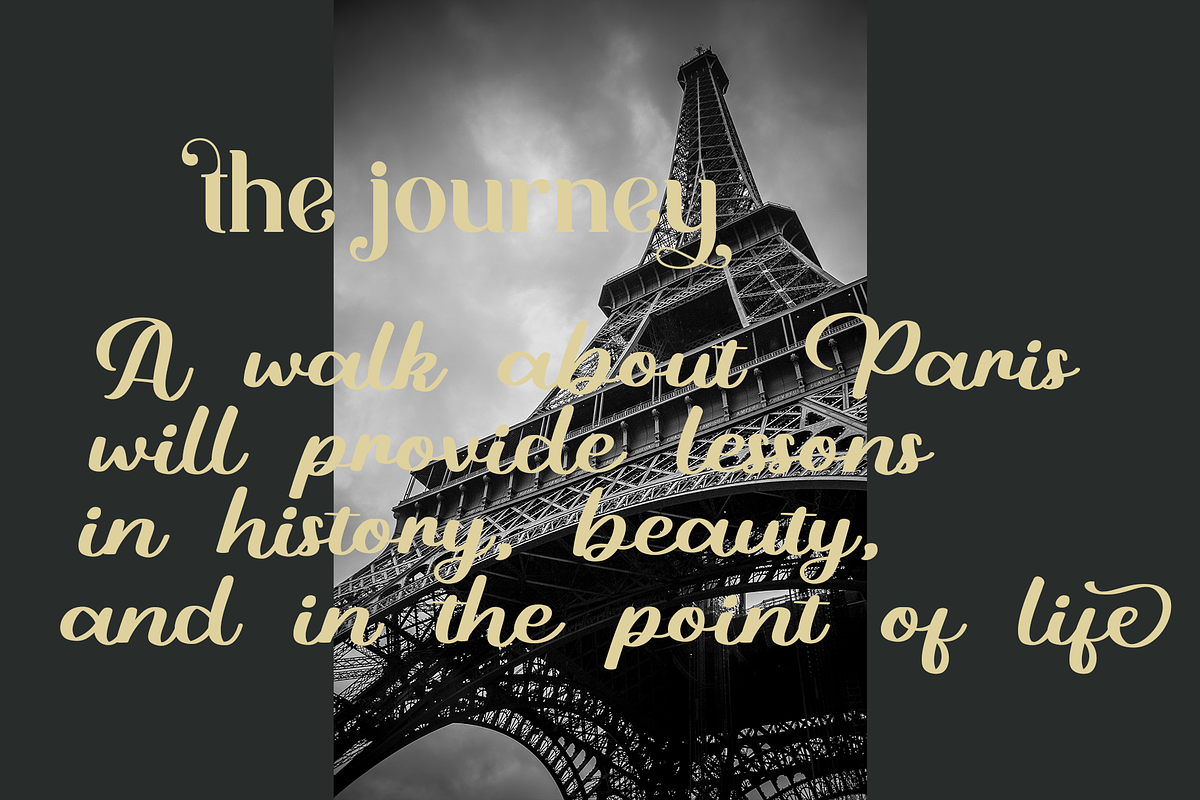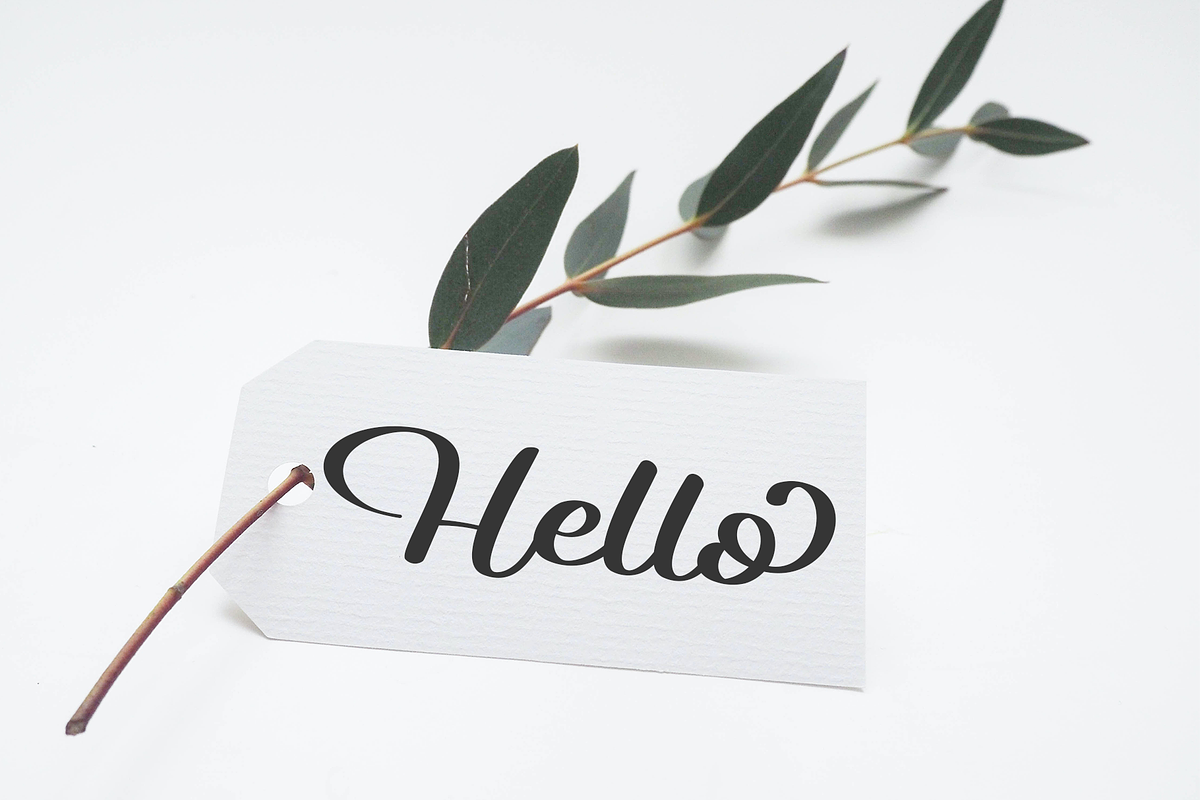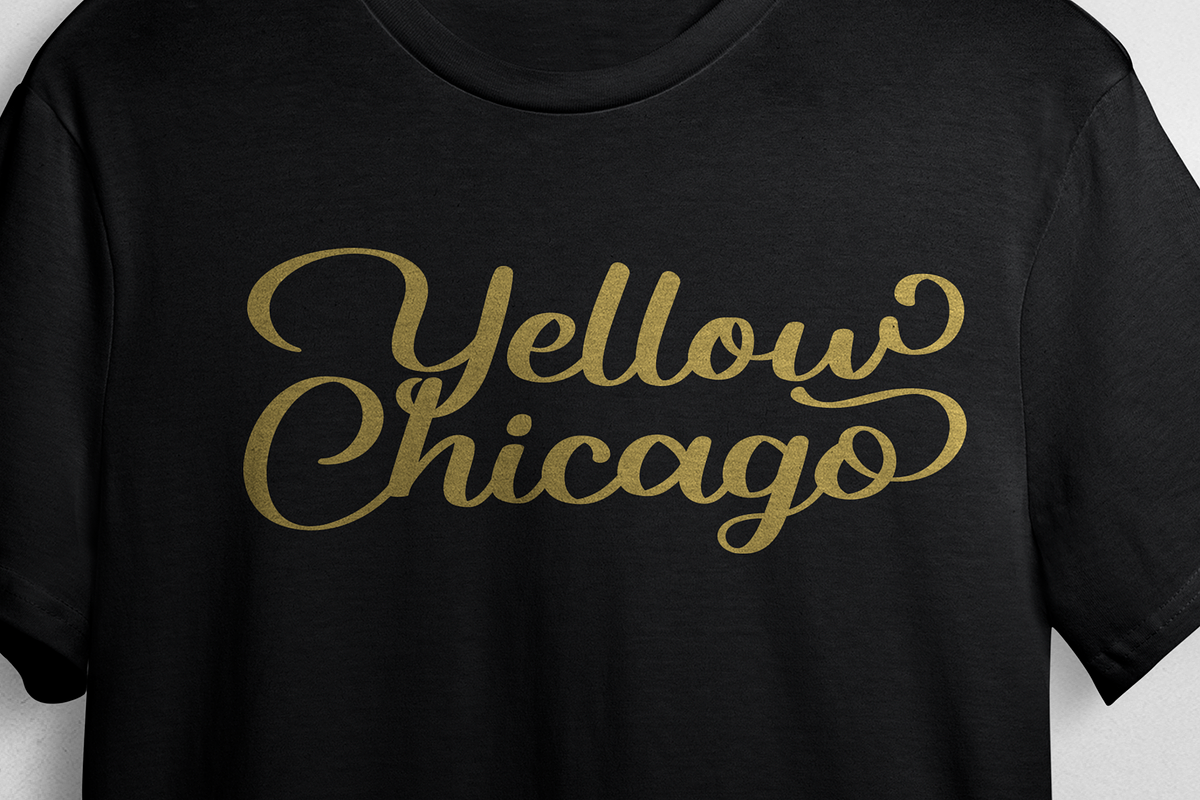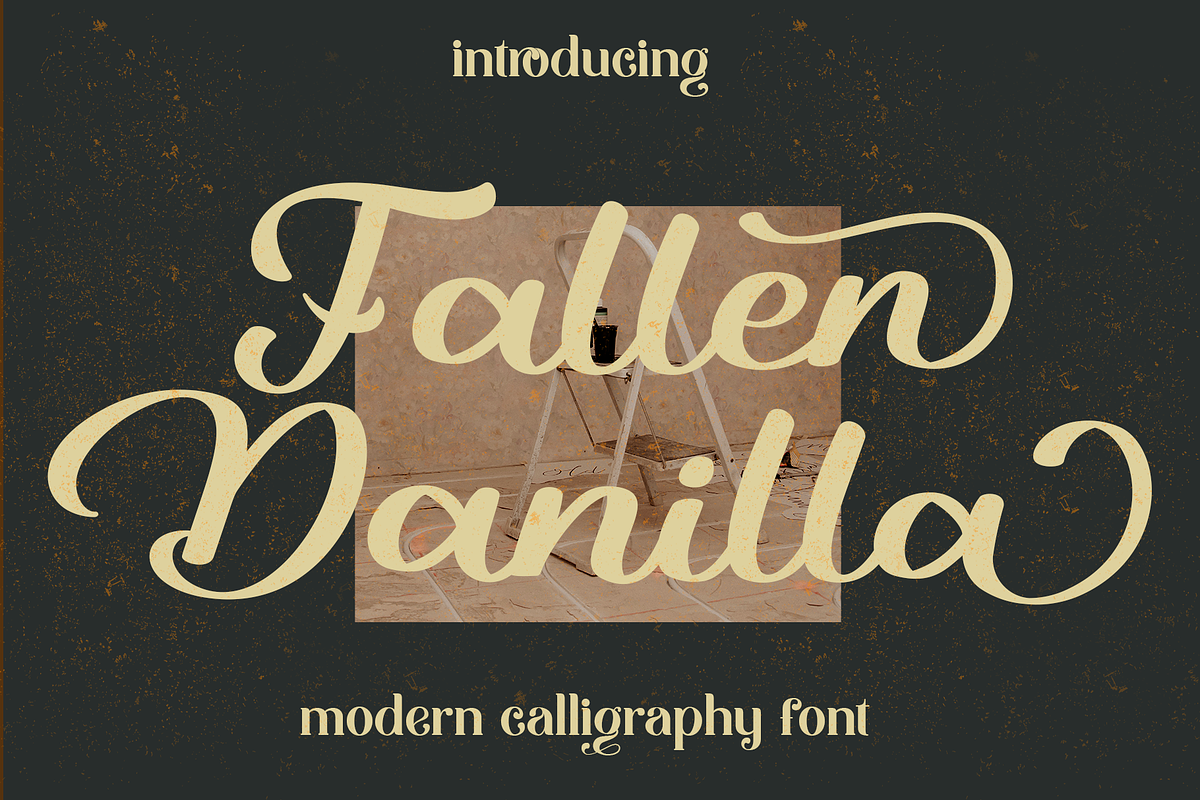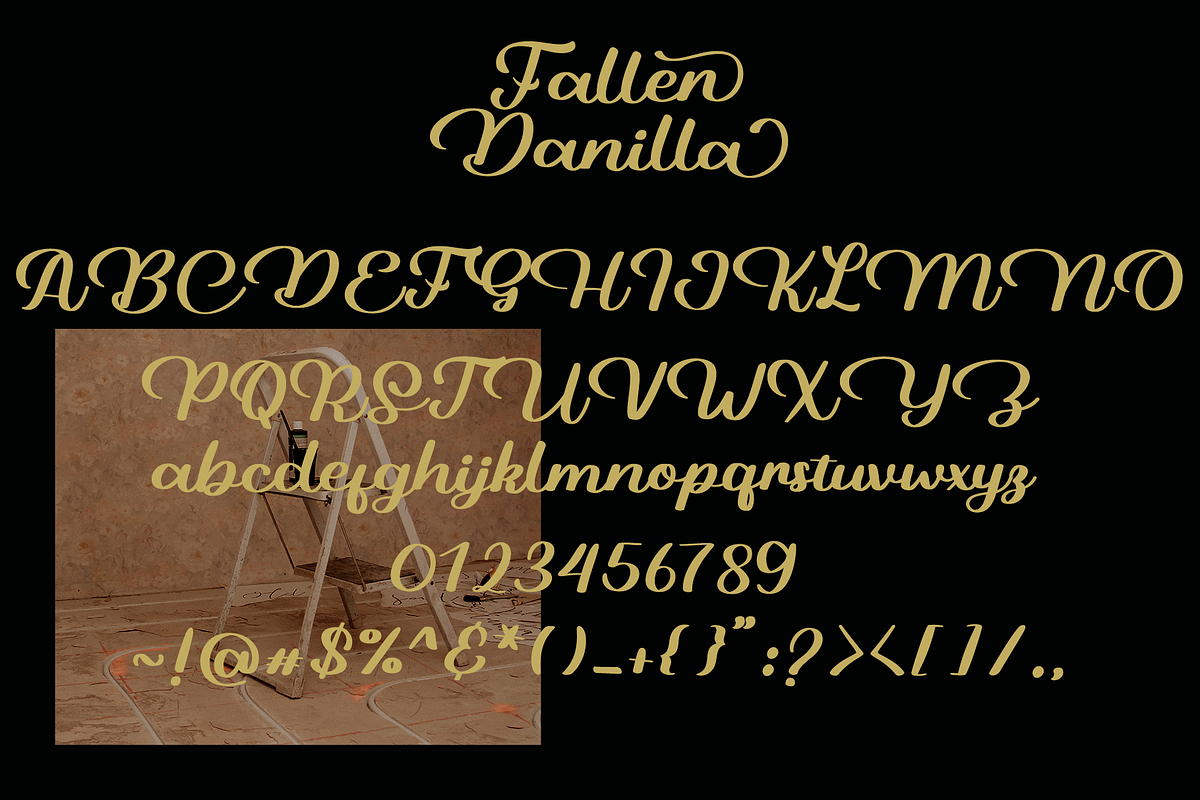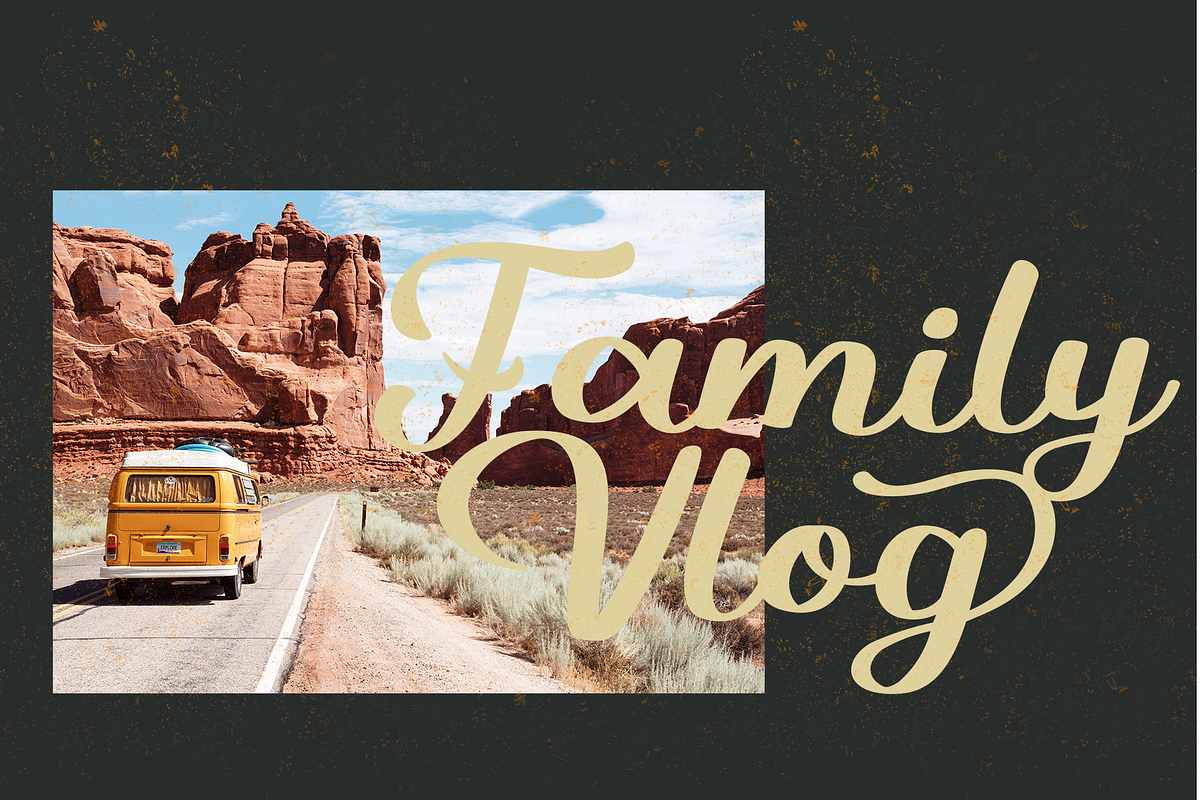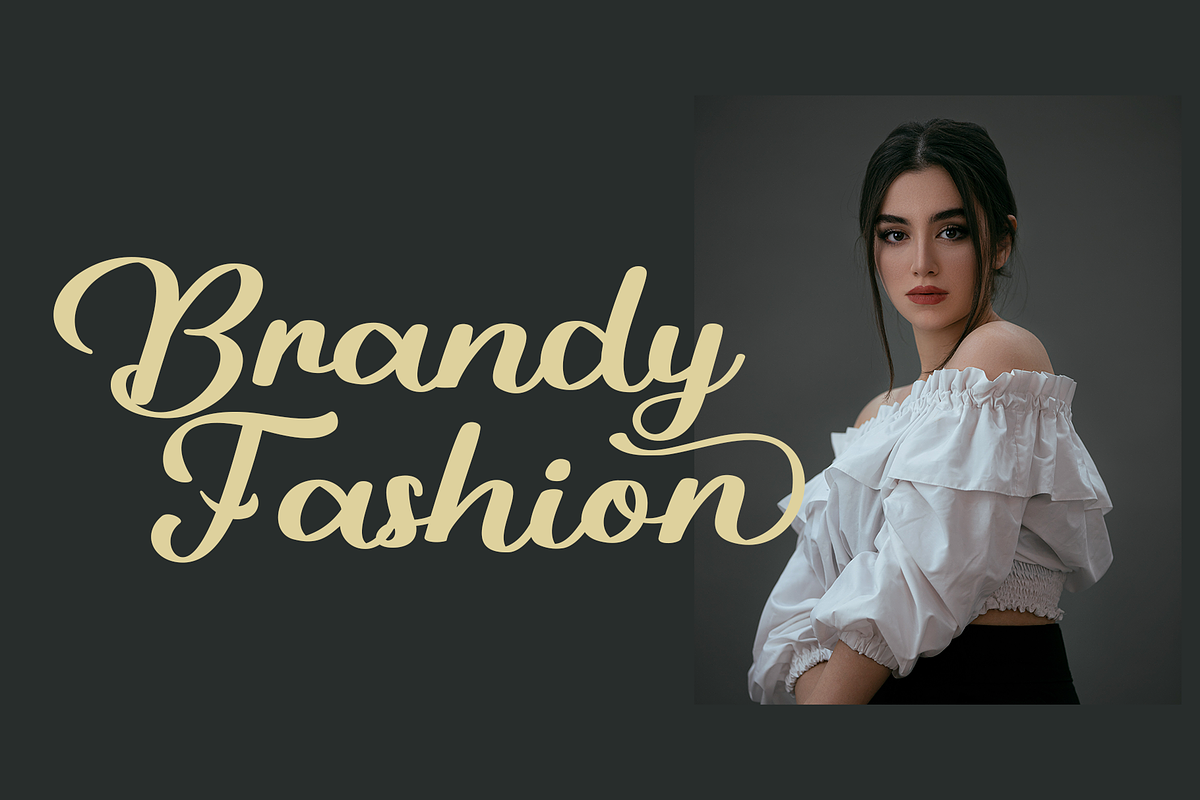
Fallen danilla
Hello guys Proudly presents our font Fallen Danilla. Fallen Danilla is mazing hand lettering look attractive and natural! Script font carefully created with a touch of elegance. Whether you’re looking for fonts for Instagram or calligraphy scripts for DIY projects, this font will turn any creative idea into a true piece of art!